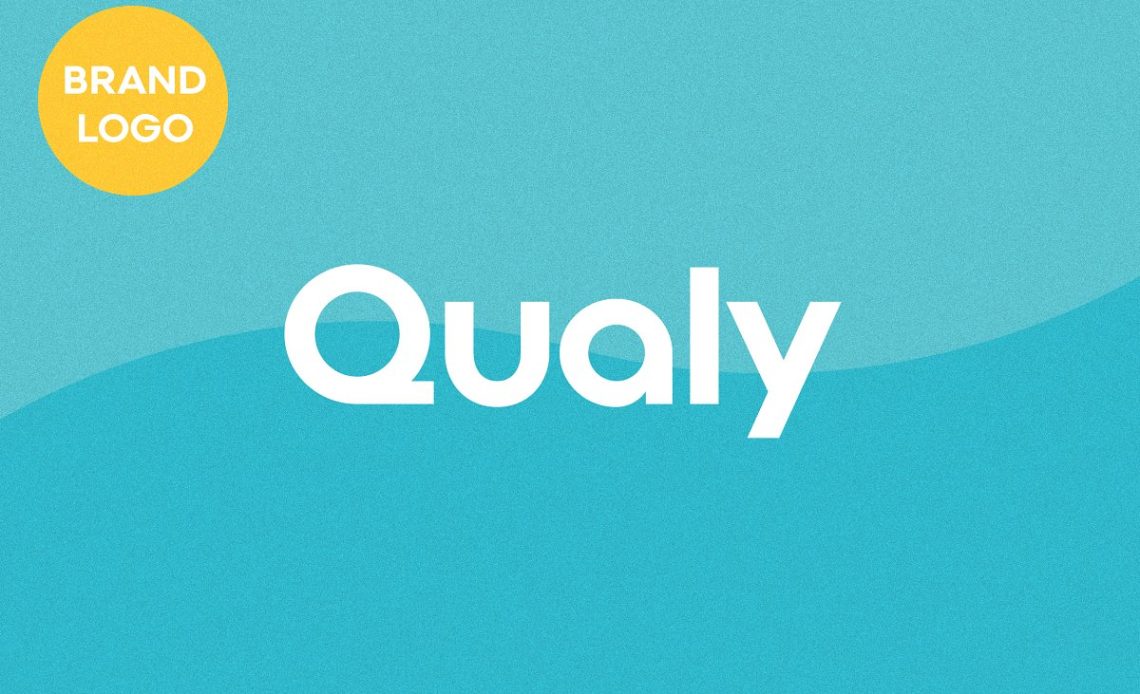
Welcome to the Qualy Logo Font Collection - the perfect set of fonts for your branding and logo needs! Developed by Shina Design, this sans-serif font family is designed to make your logos and branding stand out from the rest.
Each font in the Qualy Collection has its own unique name and concept, giving you complete independence and versatility to choose the perfect font for your specific needs. The main font, Qualy, was a bestseller logo font in 2018 and has even been used by Dribbble LLC.
With a character set that includes A-Z, 0-9, 54 punctuation marks, and 199 Latin diacritics for over 66 languages, the Qualy Logo Font Collection offers a wide range of characters to work with. Plus, each font is optimized for font pairing, especially with the popular text font Poppins.